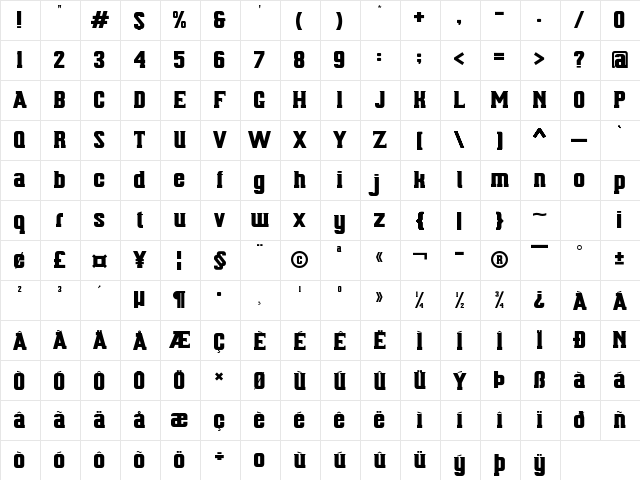
Bellmont Regular
| Foundry | RHIDTYPE |
| Designer | Repi Hilmana |
Design Context for Bellmont Typeface
Bellmont takes a measured approach to typography — its balanced proportions and neutral character make it a reliable workhorse for both digital and print work.